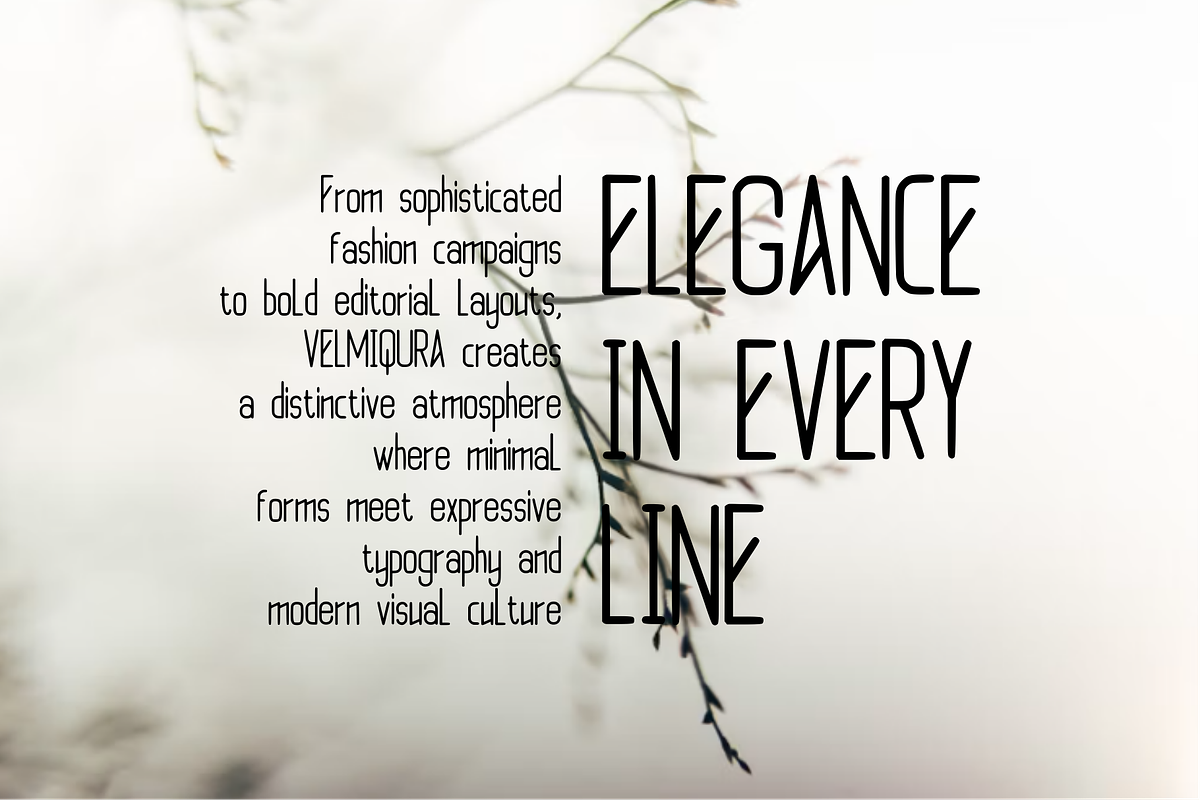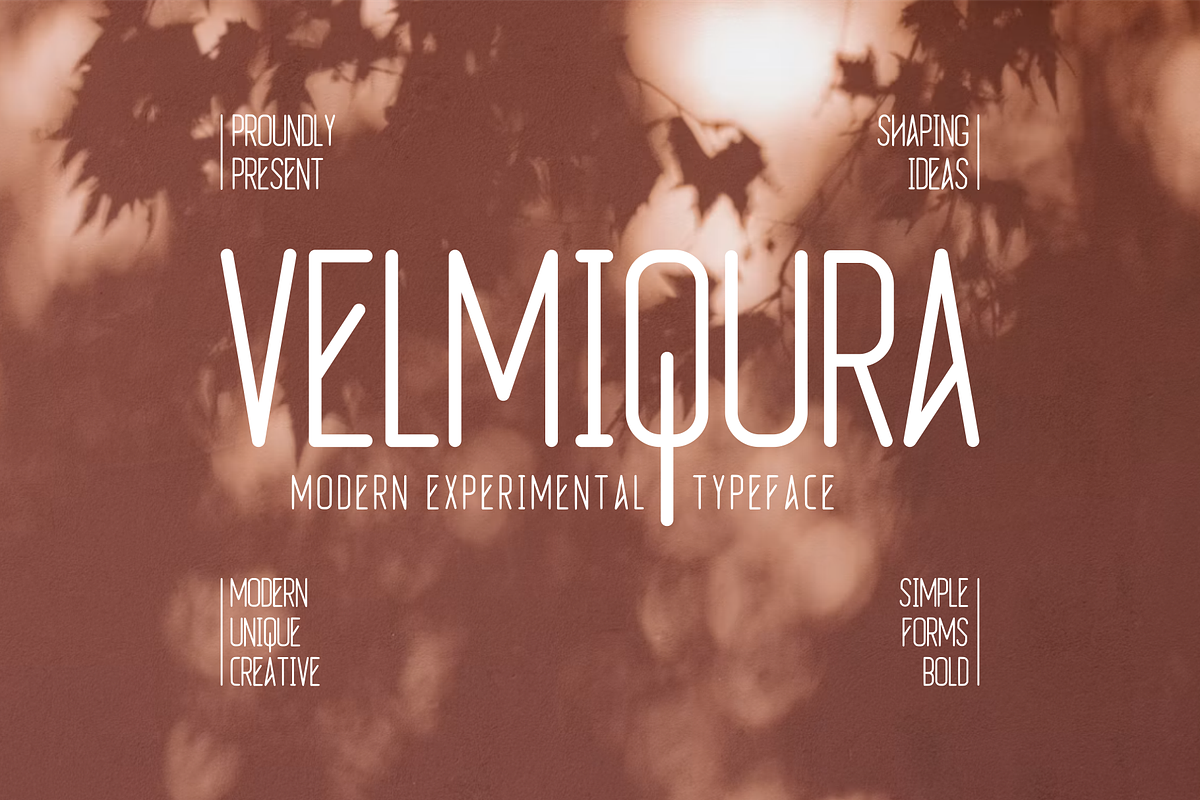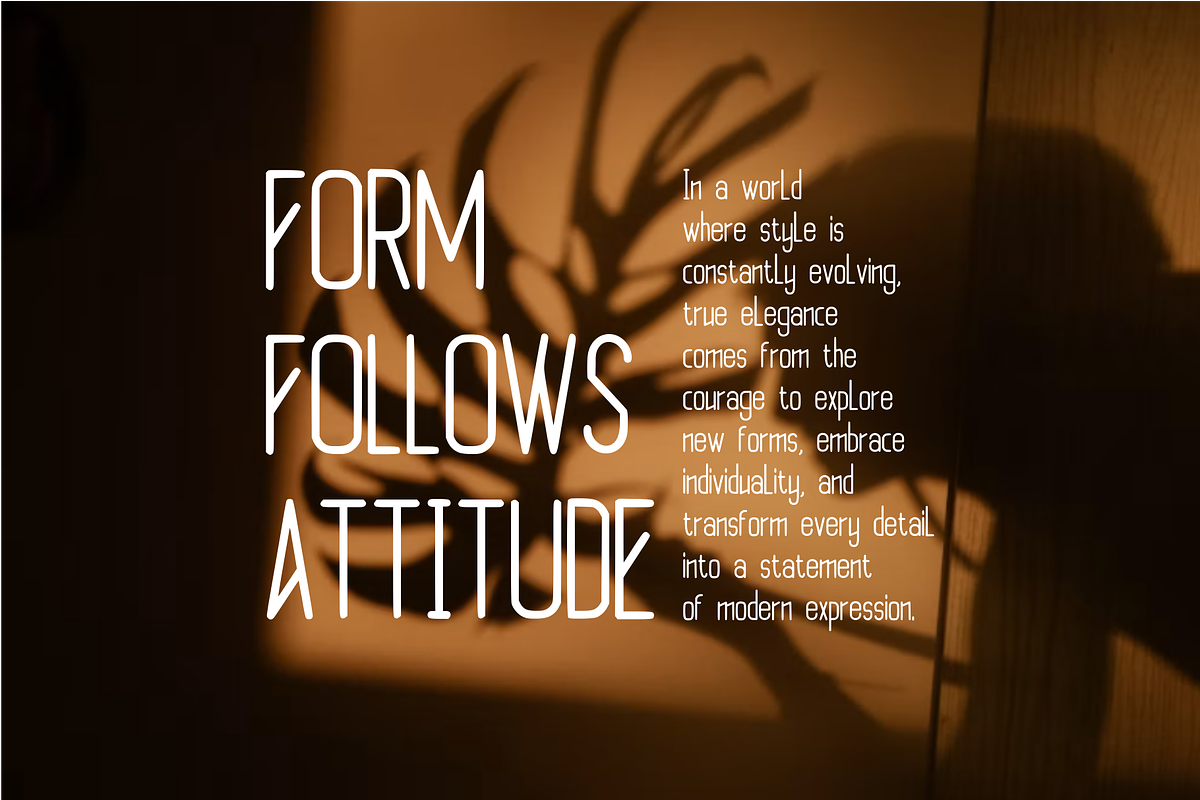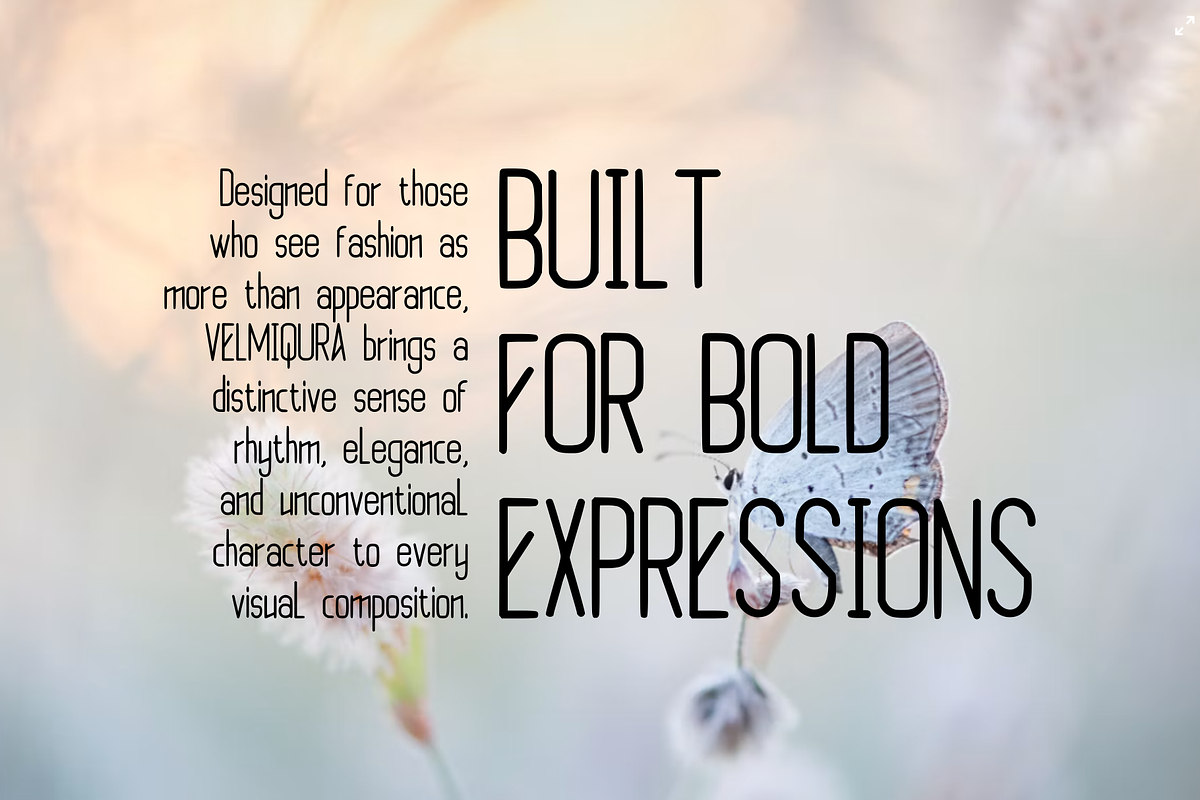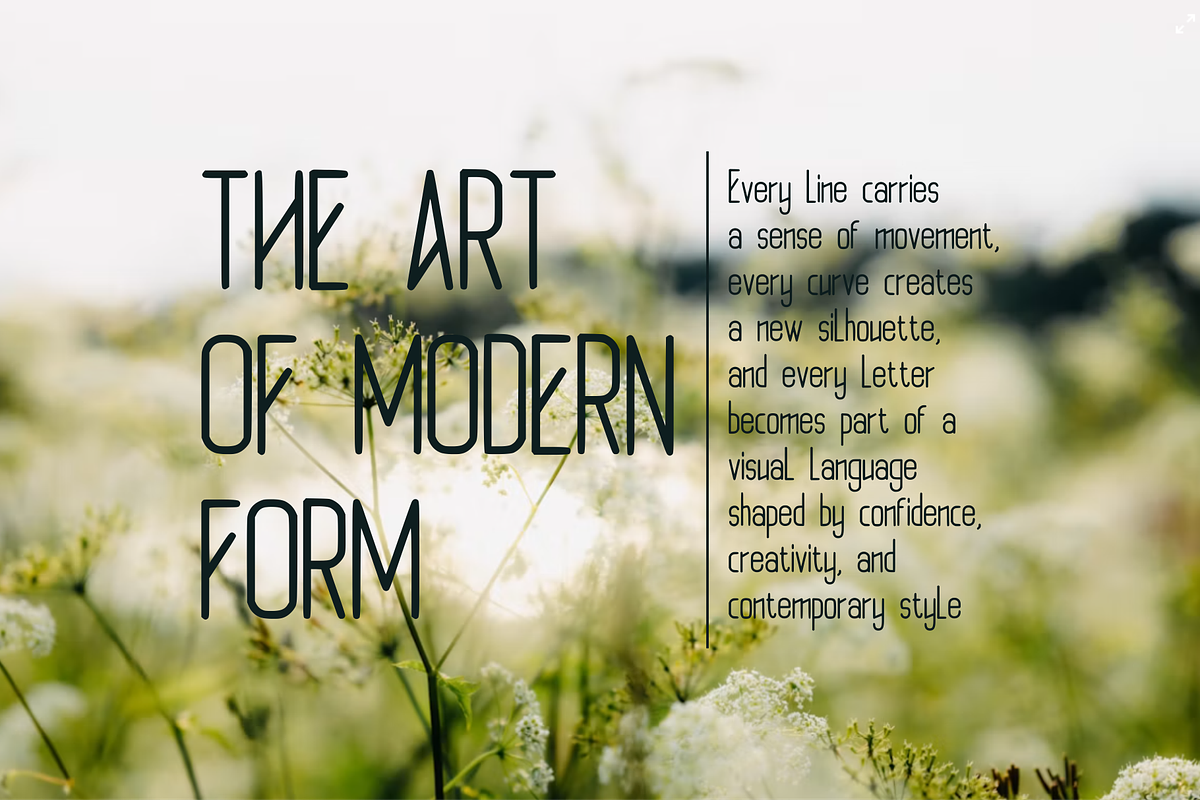
Velmiqura Modern Experimental
VELMIQURA — Modern Experimental Typeface
VELMIQURA is a modern experimental display typeface that blends bold geometric structures with unconventional letterforms and elegant vertical proportions. Its distinctive shapes create a futuristic yet sophisticated visual character, making it ideal for designers looking to add a strong contemporary statement to their work.
With its unique construction, extended forms, sharp angles, and unexpected details, VELMIQURA brings an artistic and experimental personality to typography while maintaining a clean and refined appearance. The font works especially well for branding, fashion, editorial design, posters, album artwork, magazine covers, logos, packaging, and modern visual identities.
VELMIQURA is designed to stand out—turning simple words into expressive visual compositions with a distinctive futuristic and creative edge.